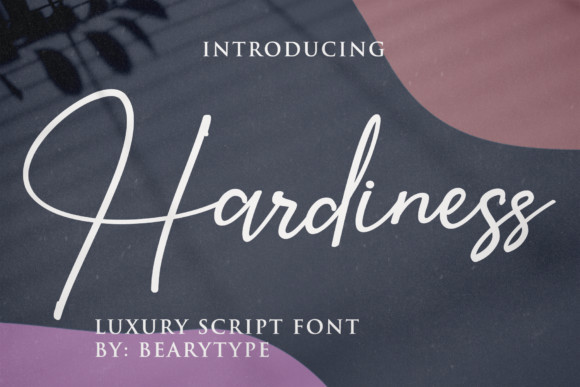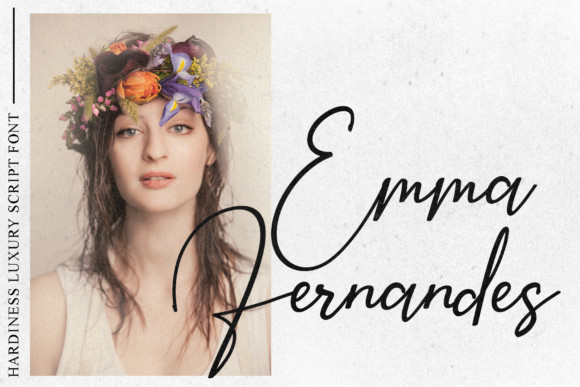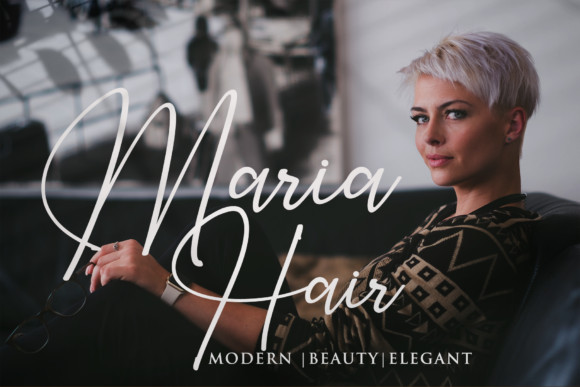
Hardiness Font
Hardiness is an amazing and attractive handwritten font. Get inspired by its authentic feel and use it to create gorgeous wedding invitations, beautiful stationary art and much more!